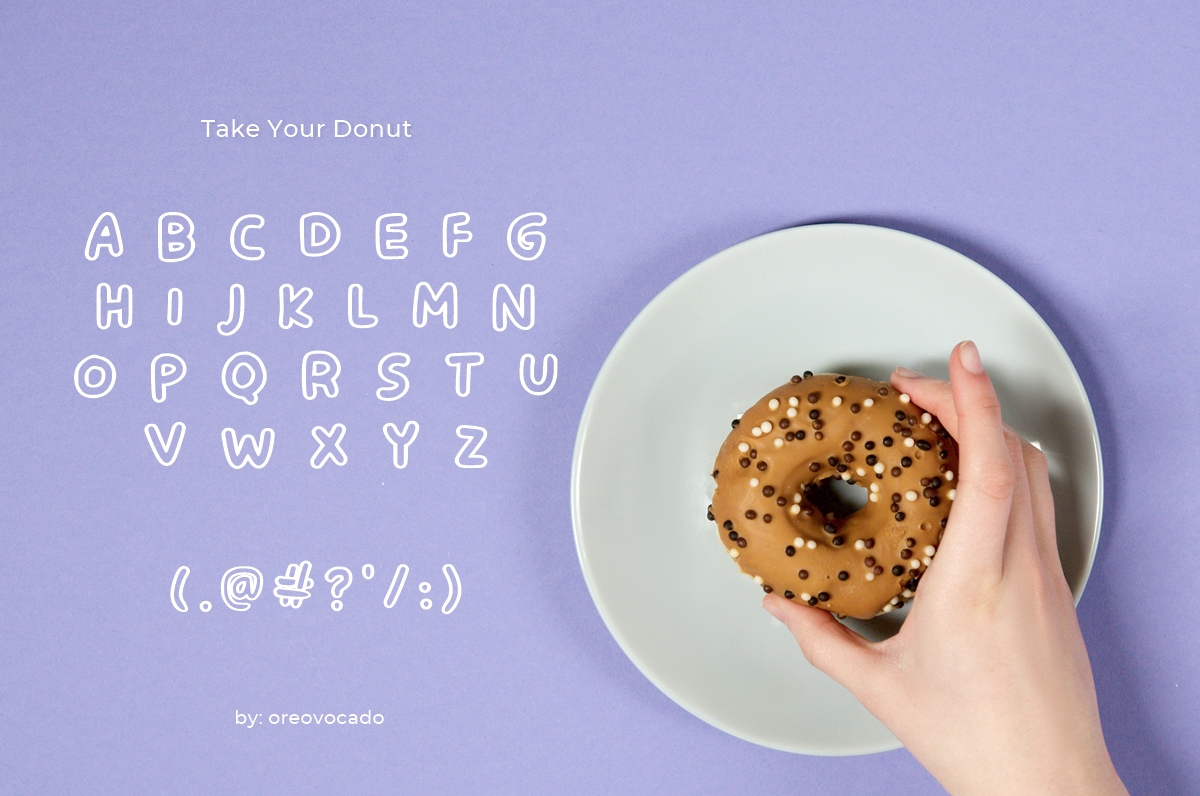
Take Your Donut Font
Take Your Donut Display Font
This is a sweet and friendly display font. Its natural and unique style makes it incredibly fitting to a large pool of designs. The only limit is your imagination!